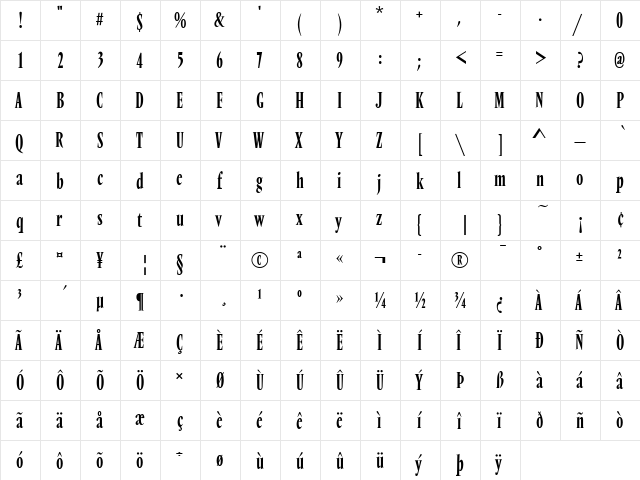
Vendome T Regular
Design Context for Vendome T Typeface
Vendome T is a composed and adaptable typeface that performs quietly and consistently across a wide range of design contexts.